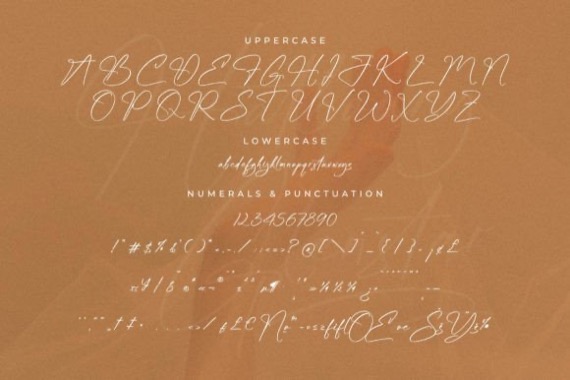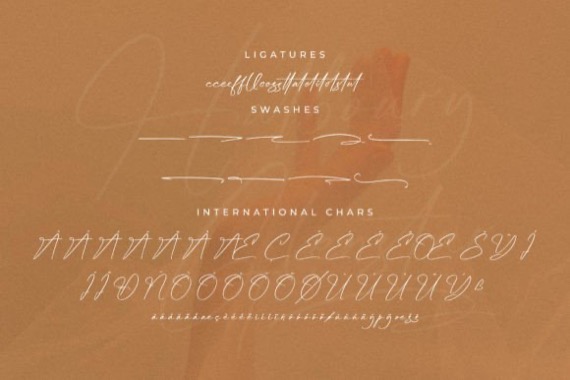
Introducing Hatboury Glenstar Font from Glorytype Studio, it’s a Modern Calligraphy font that is suitable for any project such as logos, branding projects, homeware designs, product packaging, mugs, quotes, posters, shopping bags, t-shirts, book covers, name card, invitation cards, greeting cards, label, photography, watermark, special events, and all your other lovely projects that need a beautiful script taste.
Hatboury Glenstar Handwritten Font